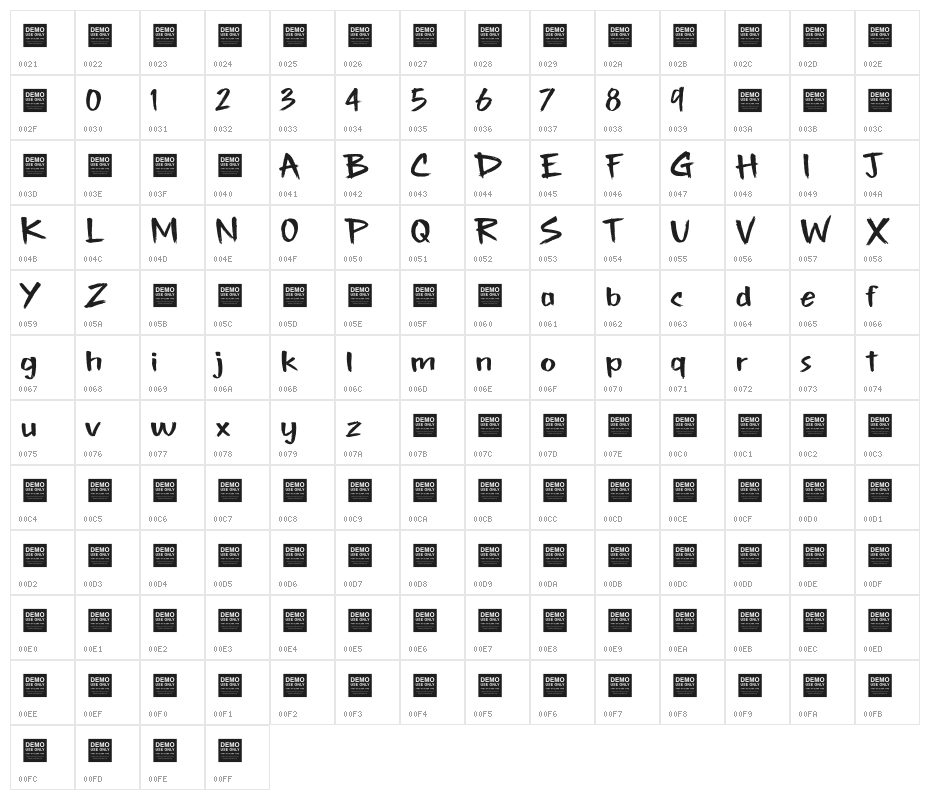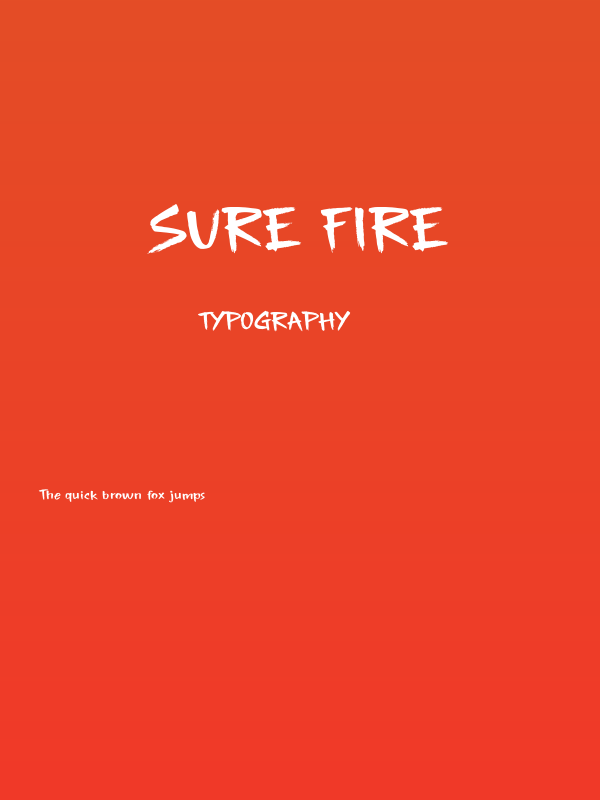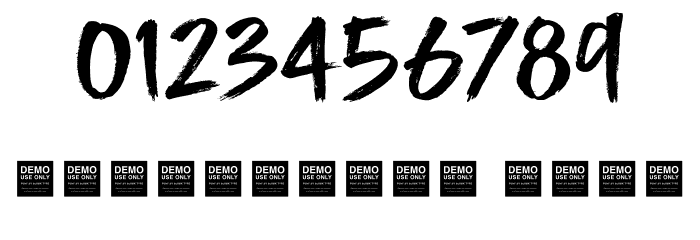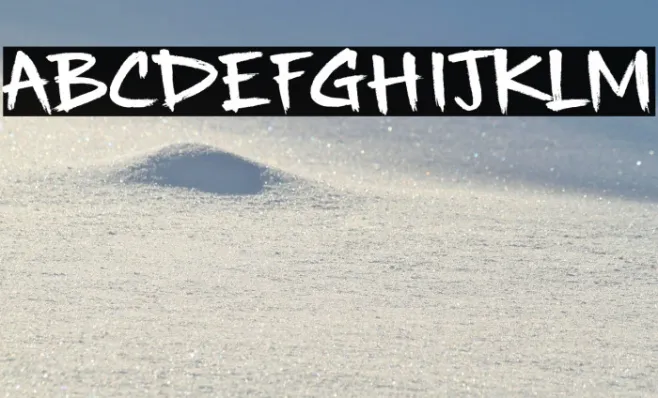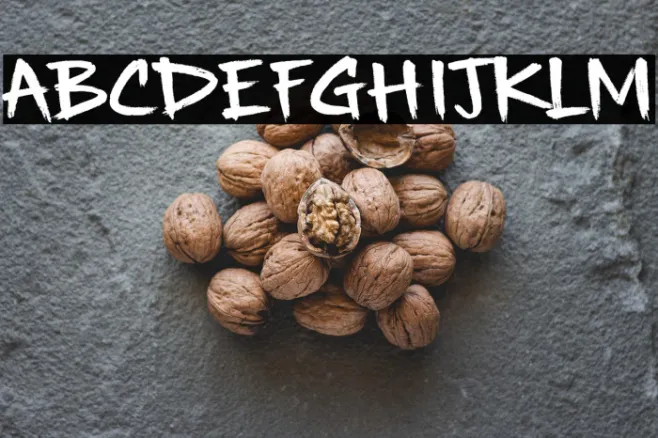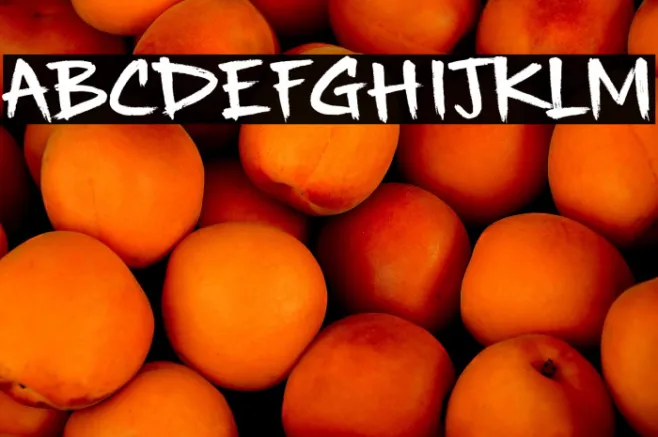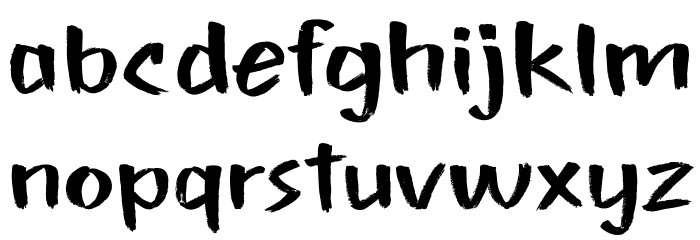
Sure Fire Font
Sure Fire Description
This font exhibits a bold, brush-like appearance with a dynamic and energetic style. The strokes are uneven, giving it a hand-painted look that adds a sense of movement and spontaneity. The uppercase and lowercase letters maintain a consistent style, with slightly jagged edges that enhance its informal and artistic feel. Numbers and special characters follow the same design ethos, ensuring a cohesive look across all elements. The font's unique character is perfect for projects that require a personal touch or a creative flair.
SURE-FIRE UPPERCASE
SURE-FIRE LOWERCASE
SURE-FIRE OTHER CHARS
| Proposed Projects | Ideal for posters, branding, social media graphics, and creative projects that require a bold, artistic touch. |